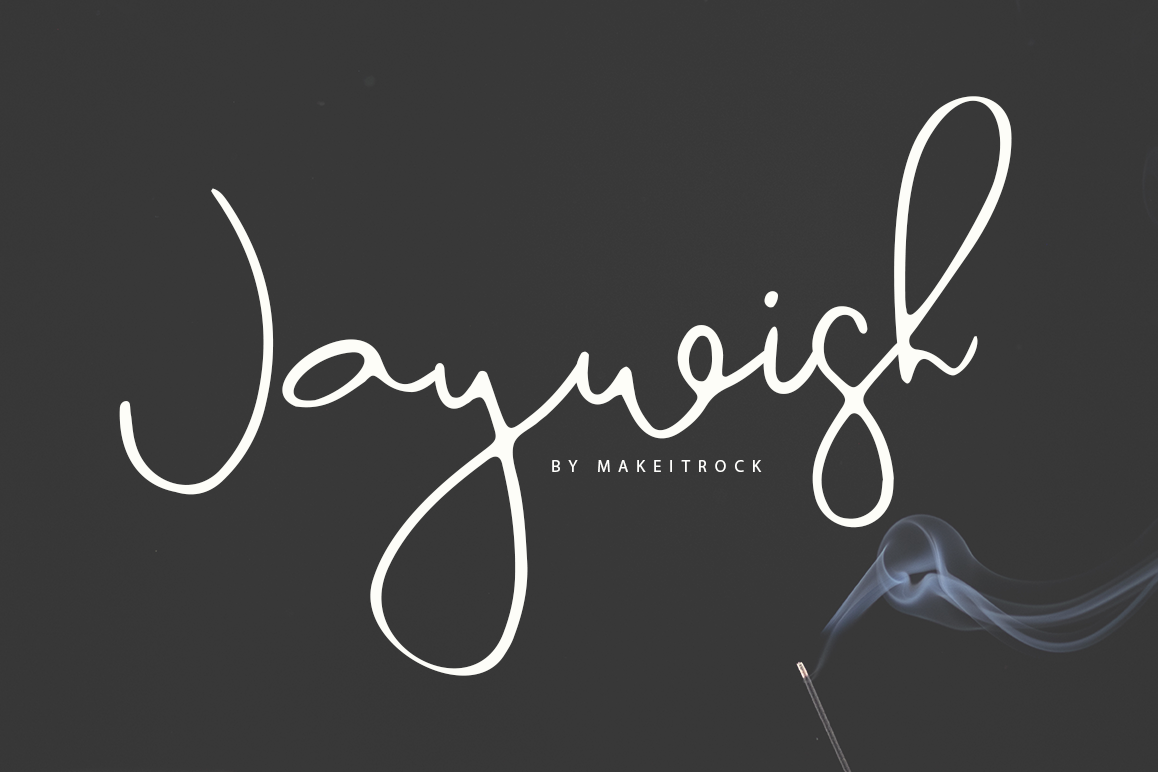
Jaywish | A classy script
*A new classy calligraphy font.Very suitable for greeting cards, branding materials, business cards, quotes, posters, and more!This font are perfect for wedding postcard. Or you can create perfect and unique design of your logo, blog, stationery, marketing, magazines and more :)